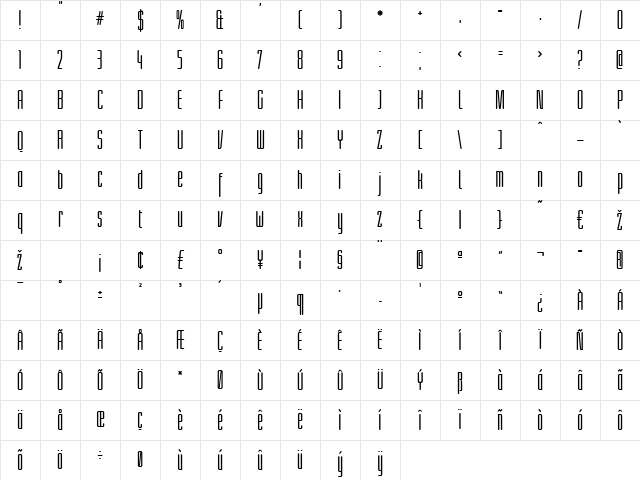
LTLichtwerk Bold Free Font
LTLichtwerk Bold
Designer: Bernd Pfannkuchen
Design Context for LTLichtwerk
LTLichtwerk is a composed and adaptable typeface that performs quietly and consistently across a wide range of design contexts. Its bold stroke weight gives it real presence on the page.